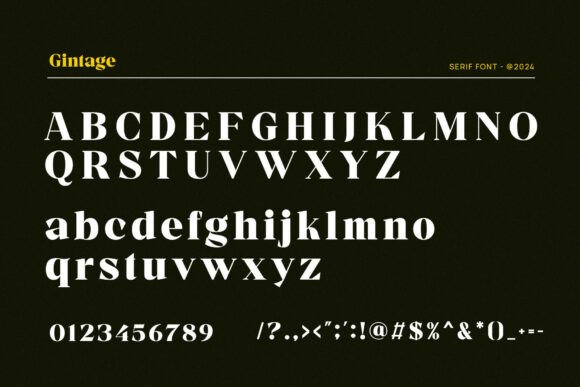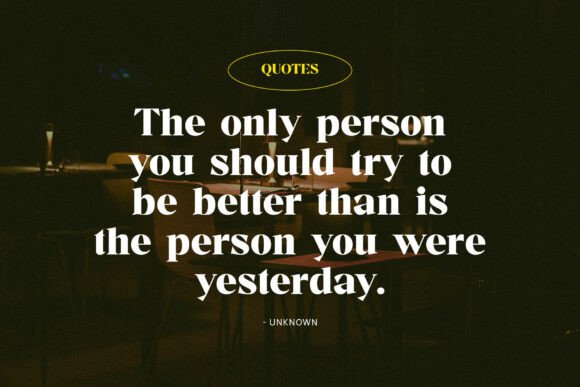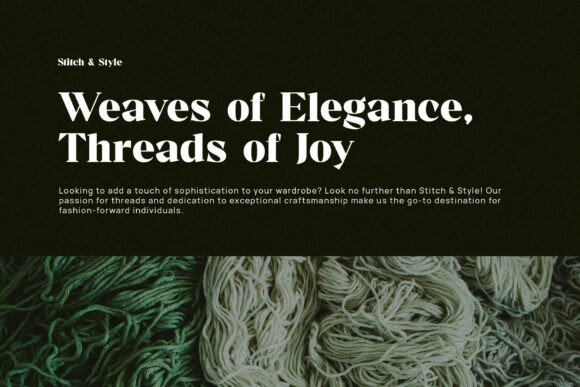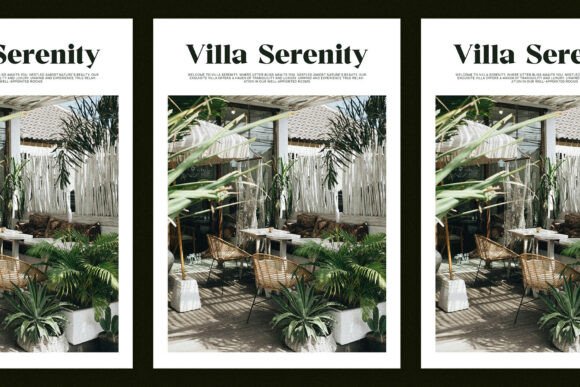
The Timeless Charm of Gintage Font: A Designer’s Delight
I still remember the frustration of working on a logo design project, only to get stuck on finding the perfect font. My client wanted something classic, yet eye-catching; elegant, yet distinctive. It was then that I stumbled upon Gintage Font, a lovely and timeless serif font that instantly captured my attention. In this article, I’ll share my experience with Gintage, its features, and how to make the most of it in your designs.
An Honest Review of Gintage Font
What I Love About Gintage ✨
- Unique and beautiful touch to every letter ✅
- Perfect for creating eye-catching logos, branding, and quotes 📣
- Timeless serif design that exudes elegance and sophistication 🕰️
- Excellent for both digital and print designs 📊
- May not be suitable for very small font sizes ⚠️
- Limited availability of stylistic alternates compared to other fonts 🤔
The Backstory of Gintage Font
Gintage Font was designed with the intention of creating a timeless and elegant serif font that would evoke a sense of nostalgia and sophistication. Inspired by classic typography from the early 20th century, Gintage’s creator aimed to craft a font that would be both versatile and beautiful. With its unique touch and classic design, Gintage has become a popular choice among designers and crafters.
Q: What type of projects is Gintage Font best suited for?
A: Gintage Font is perfect for creating eye-catching logos, branding, and quotes, as well as for use in digital and print designs.
Q: Is Gintage Font suitable for body text?
A: While Gintage Font is beautiful, it may not be the best choice for body text due to its elegant and refined design. It’s better suited for headings, titles, and quotes.